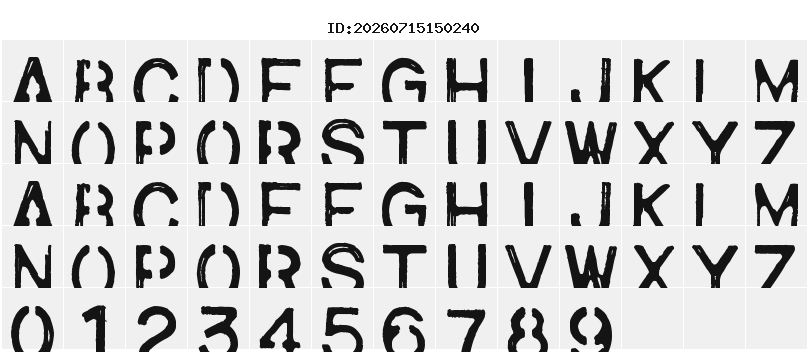
army1 Preview
• Font Name: army1
• Full Font Name: army1
• Version: Version 1.00 January 1, 2013, initial release
• PostScript Name: army1
• Description: This font was created using Scanahand from High-Logic.com
About army1.ttf
army1.ttf is a modern, elegant sans-serif font designed for ultimate readability and visual harmony. Perfect for branding, headlines, web design, and print materials.